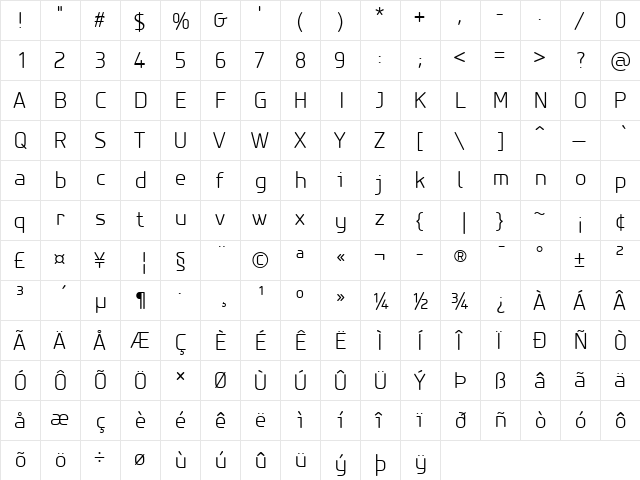
PF Isotext Pro Light
Light · Parachute蠗orldwide Panos Vassiliou ·
DesignerPanos Vassiliou
Design Context for PF Isotext Pro Typeface
PF Isotext Pro takes a measured approach to typography — its balanced proportions and neutral character make it a reliable workhorse for both digital and print work. Its slender proportions lend an understated elegance to any composition.